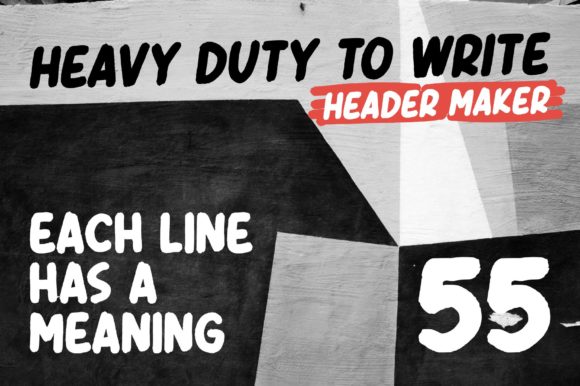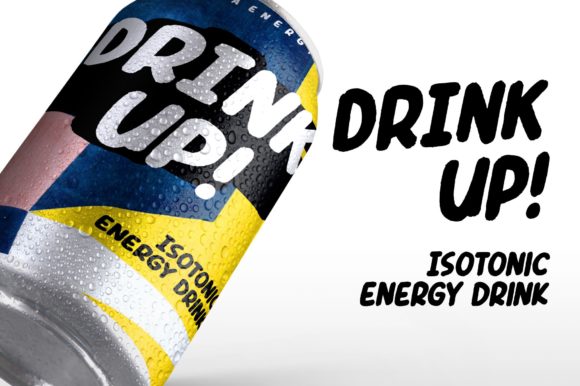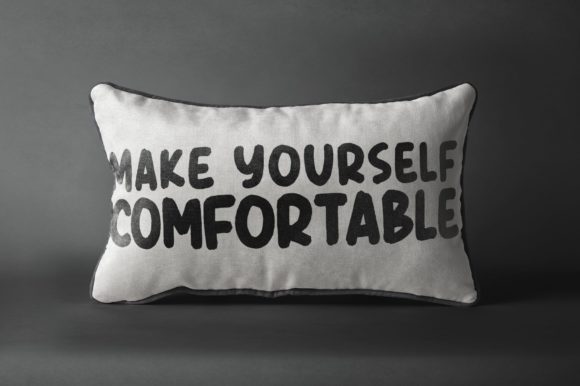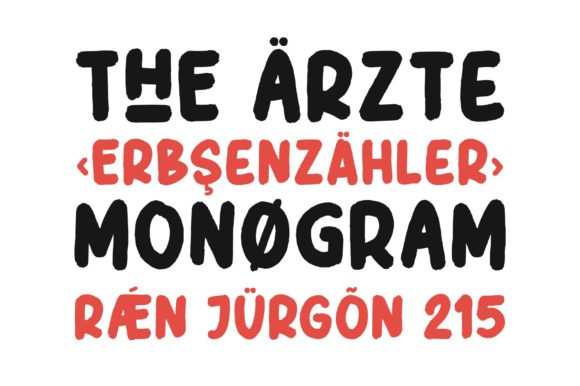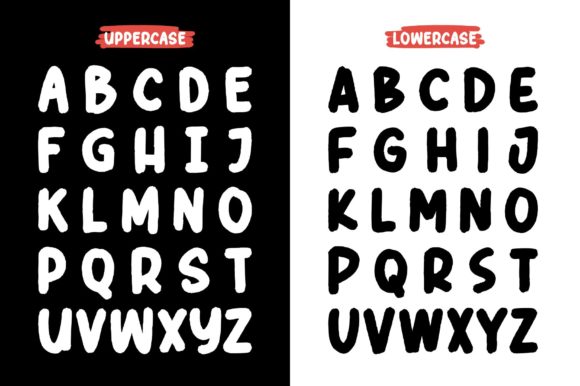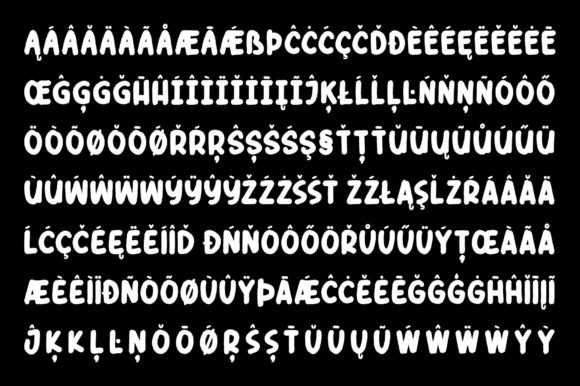
Introducing Header Maker Font: The Ultimate Display Font for Designers and Crafters
Are you tired of using the same old fonts for your designs and crafts? Look no further! Header Maker Font is a bold and chunky charactered display font that’s perfect for a wide variety of designs. Its neat and simple style makes it a versatile font that can be used for any occasion. In this article, we’ll dive into the features and benefits of Header Maker Font and explore how it can become your go-to font for all your design needs.
What is Header Maker Font?
Header Maker Font is a display font that’s designed to make a statement. Its bold and chunky characters are perfect for creating eye-catching headers, titles, and text displays. The font’s neat and simple style ensures that it’s easy to read and understand, making it perfect for use in a variety of designs, from digital graphics to print materials.
Key Features of Header Maker Font
• Bold and Chunky Characters: Header Maker Font features bold and chunky characters that are perfect for creating eye-catching displays.
• Neat and Simple Style: The font’s neat and simple style ensures that it’s easy to read and understand.
• Versatile: Header Maker Font is suitable for a wide variety of designs, from digital graphics to print materials.
Benefits of Using Header Maker Font
So, why should you use Header Maker Font for your designs and crafts? Here are just a few benefits:
• Adds Visual Impact: Header Maker Font’s bold and chunky characters add visual impact to your designs, making them stand out from the crowd.
• Enhances Readability: The font’s neat and simple style ensures that your text is easy to read and understand.
• Increases Versatility: Header Maker Font is suitable for a wide variety of designs, making it a versatile addition to your font collection.
Design Ideas Using Header Maker Font
Header Maker Font is perfect for a wide variety of designs and crafts. Here are a few ideas to get you started:
• Social Media Graphics: Use Header Maker Font to create eye-catching social media graphics.
• Blog Headers: Use the font to create bold and chunky blog headers.
• Print Materials: Use Header Maker Font for print materials, such as brochures, flyers, and posters.
• Craft Projects: Use the font for craft projects, such as card making, scrapbooking, and journaling.
Font Name Header Maker Font
Author Garisman Studio
In conclusion, Header Maker Font is a bold and chunky charactered display font that’s perfect for designers and crafters. Its neat and simple style makes it a versatile font that can be used for any occasion. With its ease of use and visual impact, Header Maker Font is sure to become your go-to font for all your design needs.